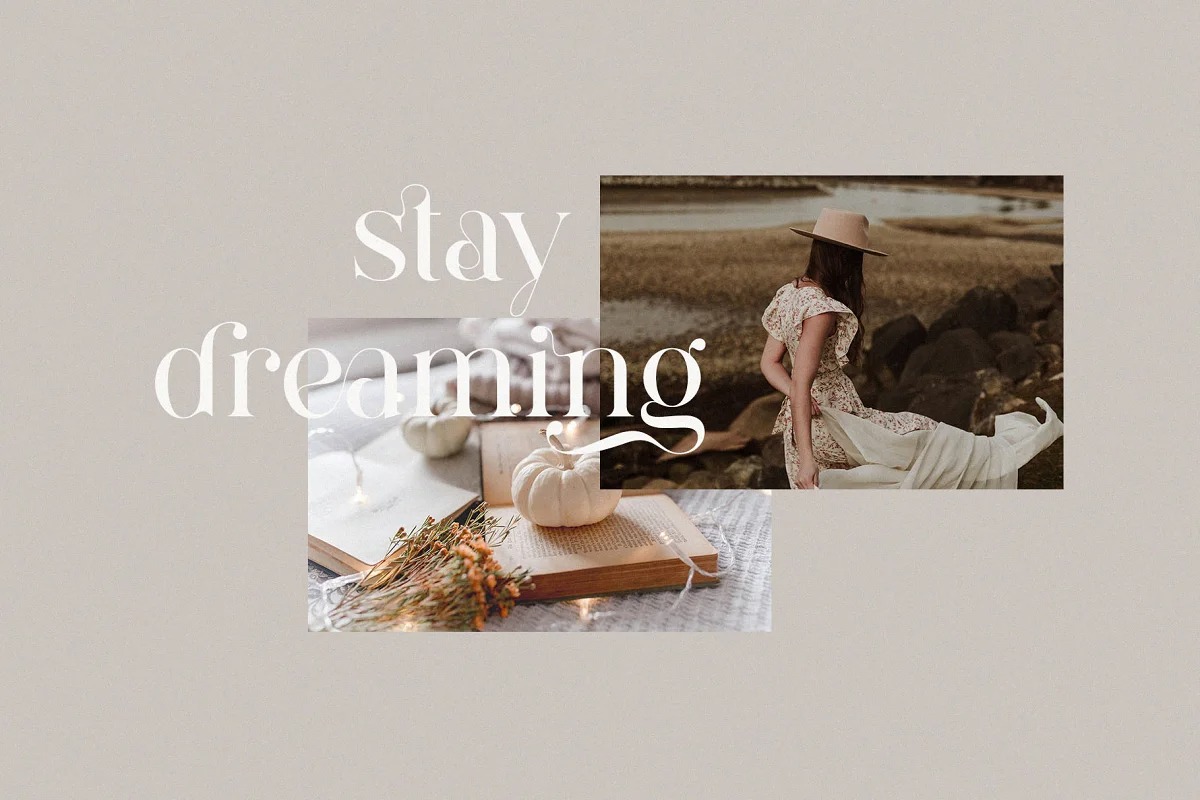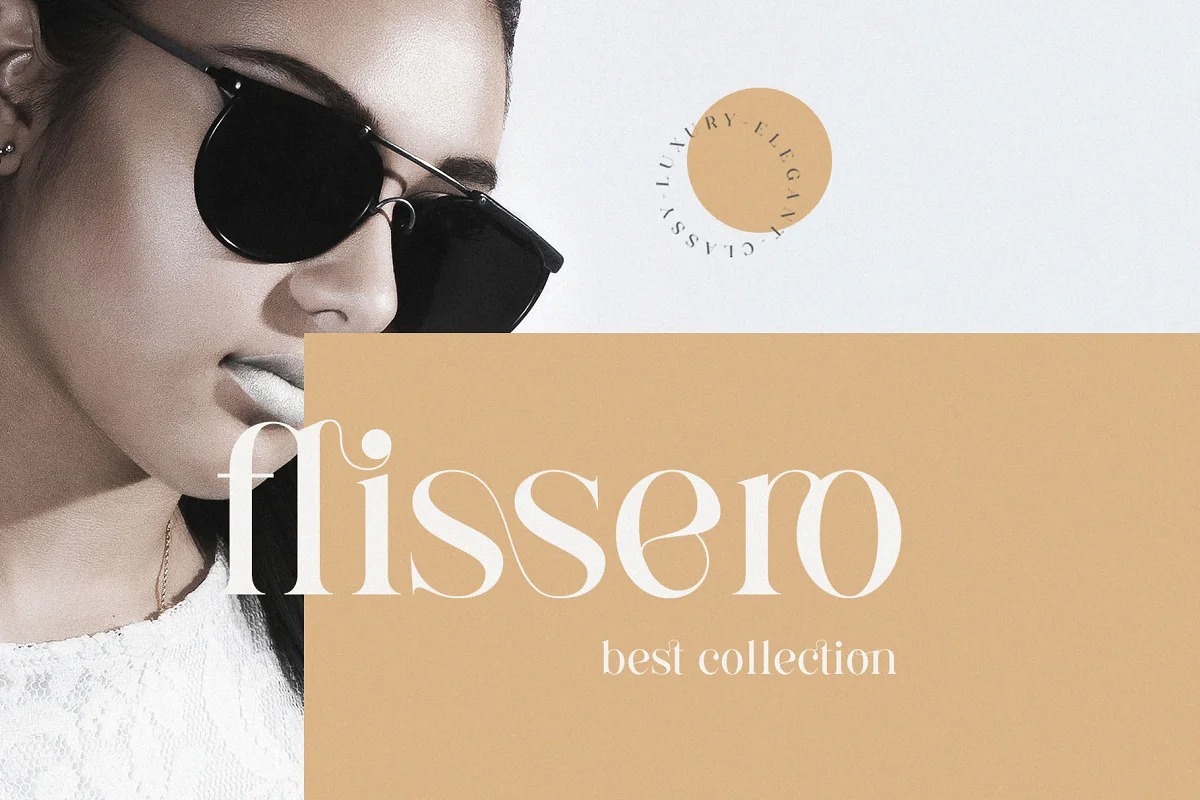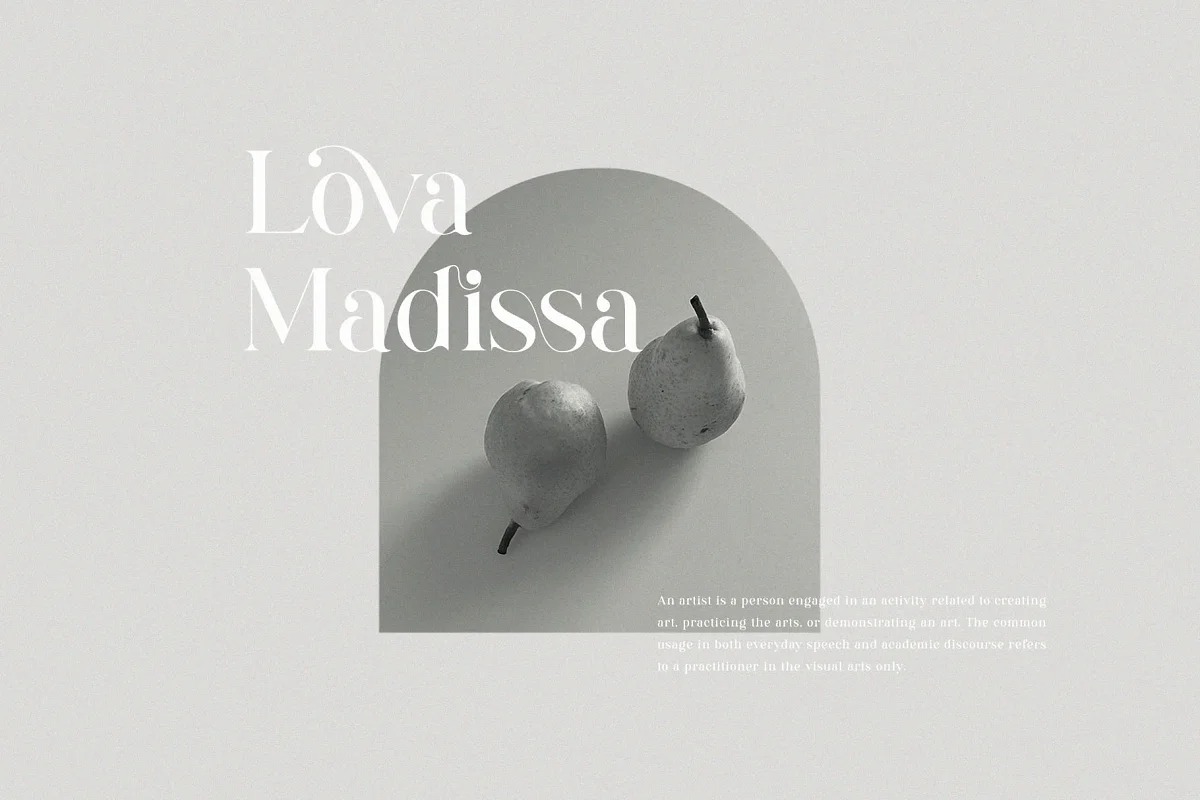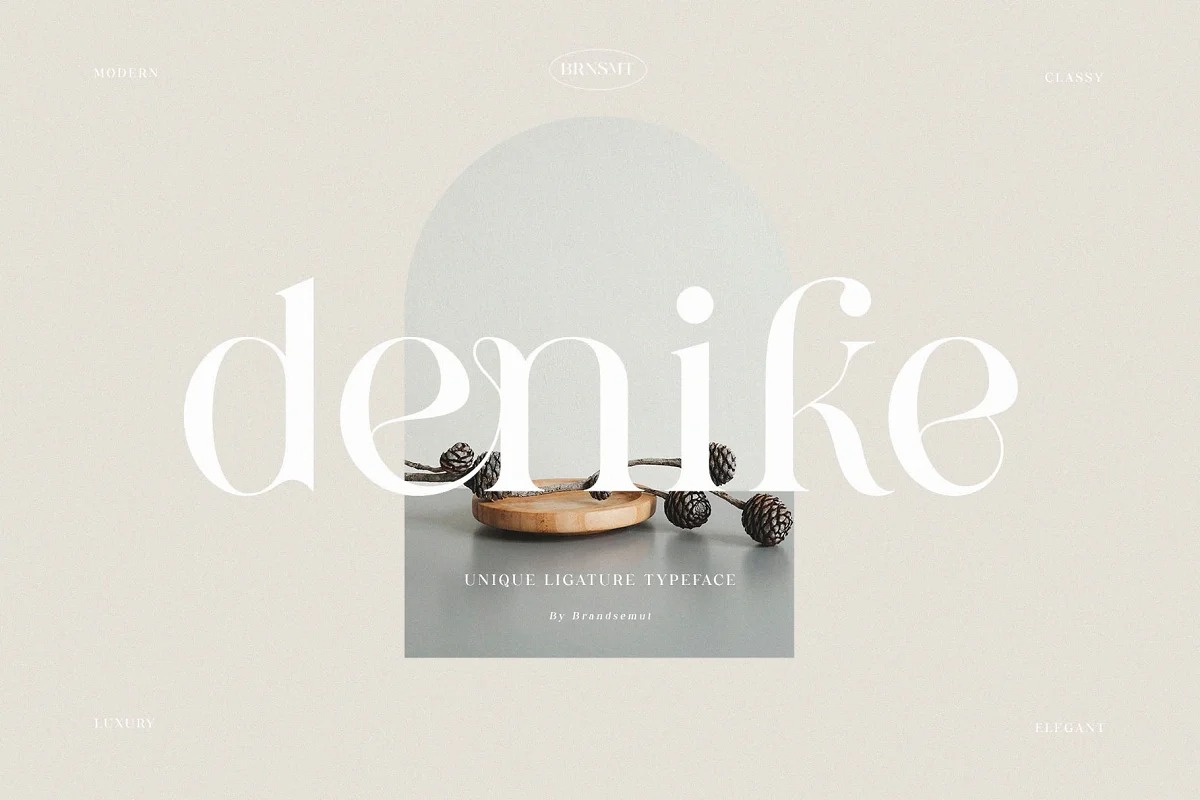
Denike Serif Font
This is designed in a very refined and modern style. It includes uppercase and lowercase letters, alternate of lowercase, numeral, ligatures, a large range of punctuation and also multilingual support. Perfects for poster, web design, magazine cover, album cover , branding and many more.